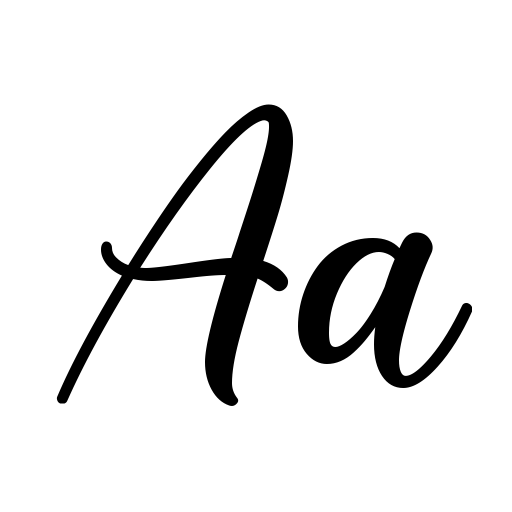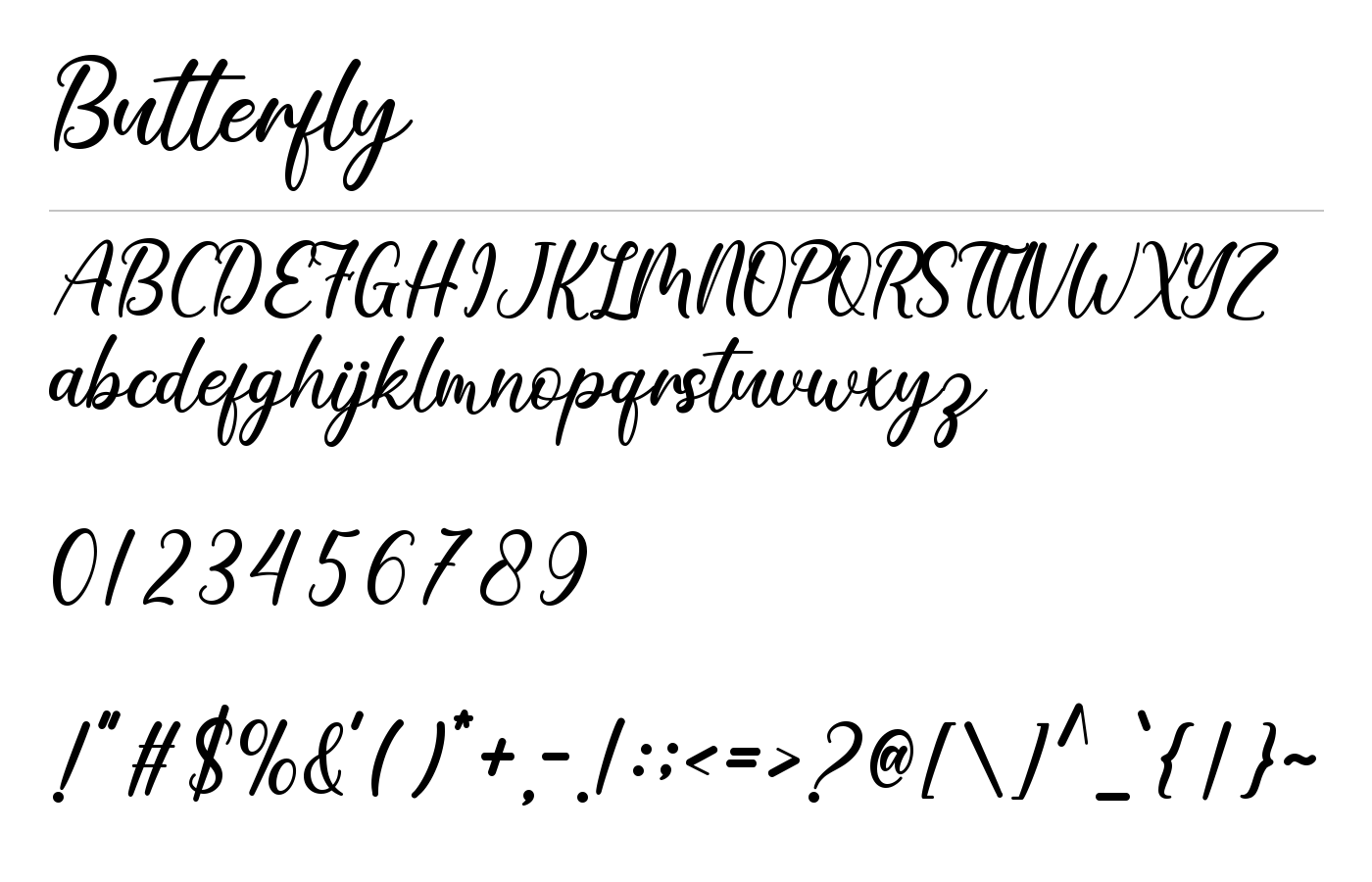
Butterfly is a graceful script font with smooth, flowing strokes and a moderate contrast that gives it an elegant yet approachable feel. Its tall, slender letterforms and casual calligraphic style make it perfect for feminine branding, invitations, and stylish headlines where a personal, handcrafted touch is desired.
Butterfly Font
About Butterfly Font
| Font family | Butterfly Font |
| Designer | Risma Ramawi |